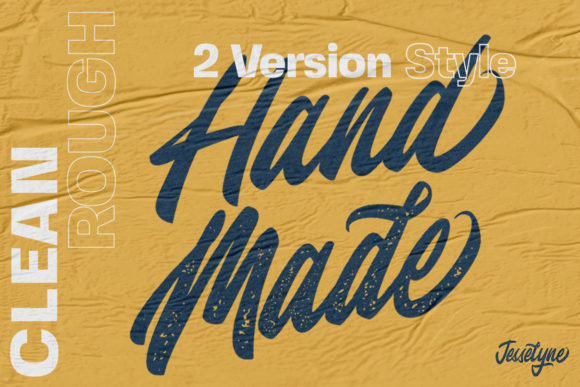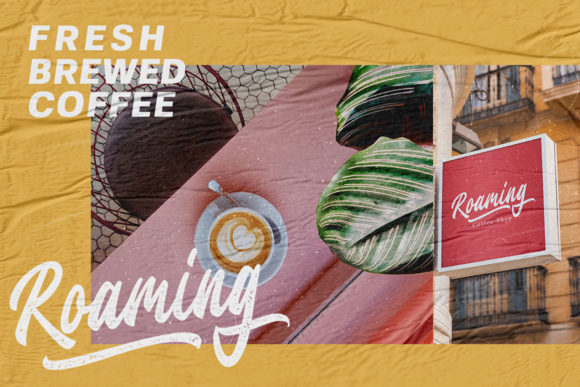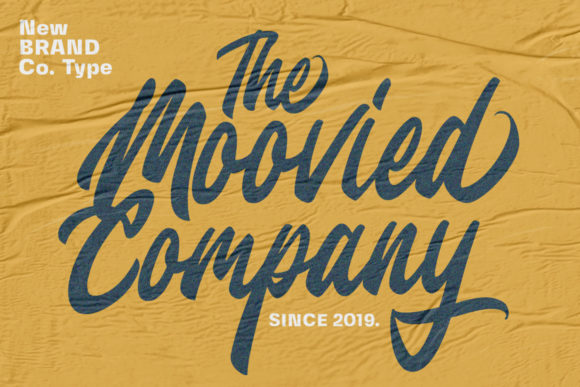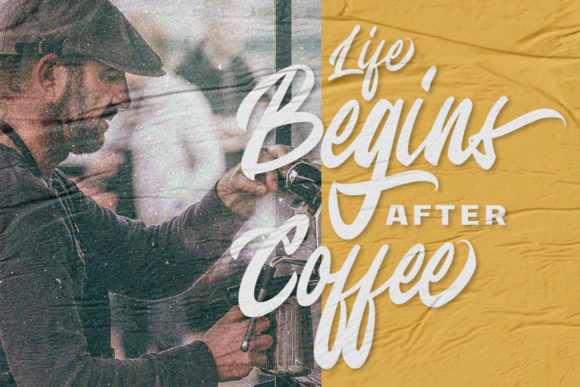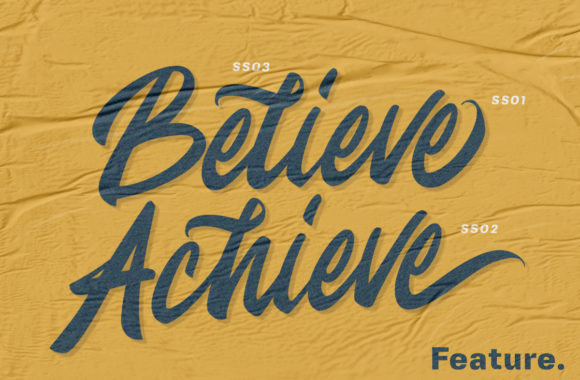
Introduction to Jesselyne Script Font Font
Fonts play a crucial role in design, and the Jesselyne Script Font font is a typeface that brings both character and versatility to any project. Whether you’re working on a branding project, a website, or a print design, the Jesselyne Script Font font offers a unique style that can elevate your work.
The Jesselyne is a urban script font.
It has a vintage street-wear style which can be used for branding, logos, quotes, headers, posters, and much more .
Key Features of Jesselyne Script Font Font
Why Choose Jesselyne Script Font Font?
The Jesselyne Script Font font is more than just a typeface – it’s a design tool that helps you communicate your message with style and clarity. Its unique character set and versatile design make it suitable for a wide range of applications, from elegant invitations to bold headlines.
With its carefully crafted letterforms and balanced proportions, the Jesselyne Script Font font ensures readability and visual appeal across all mediums.
What makes Jesselyne Script Font font special?
The Jesselyne Script Font font stands out with its unique design, exceptional readability, and versatility across various design applications.